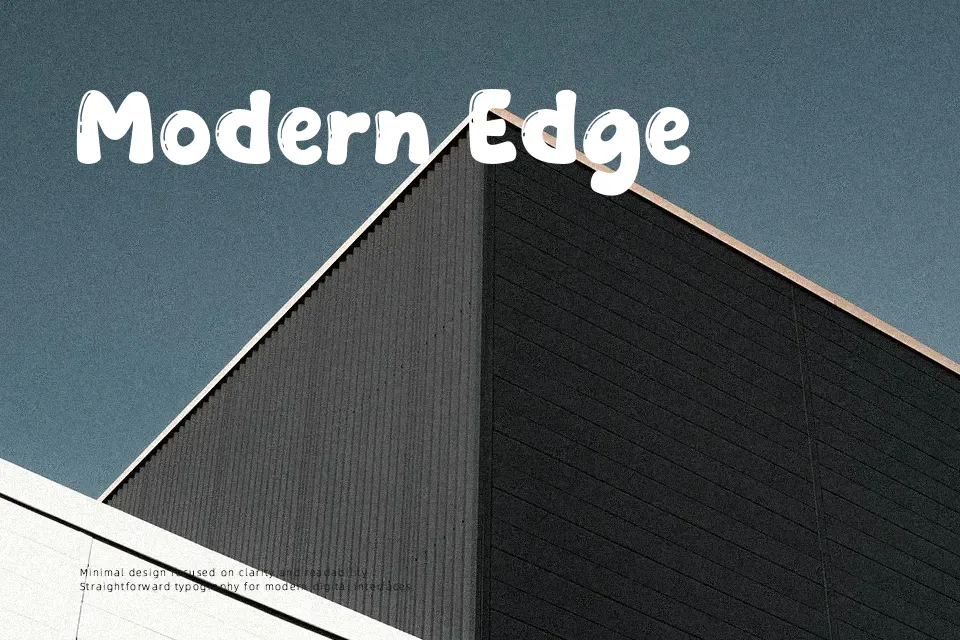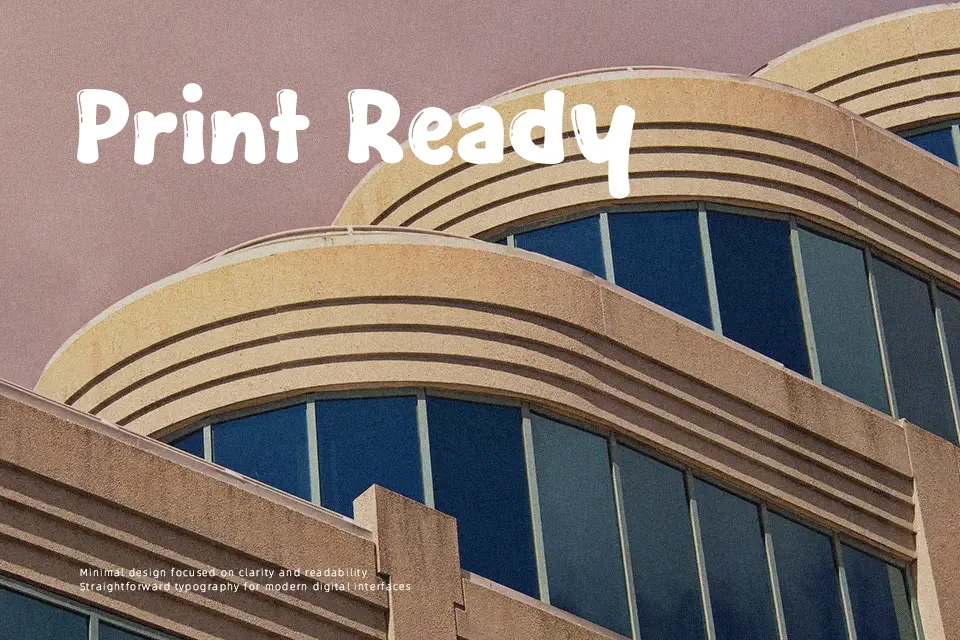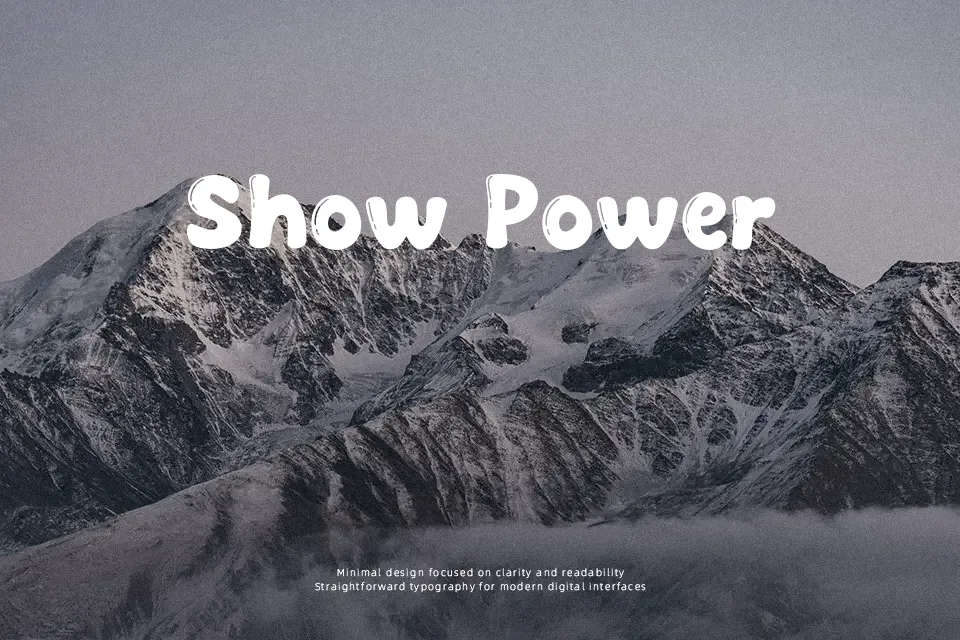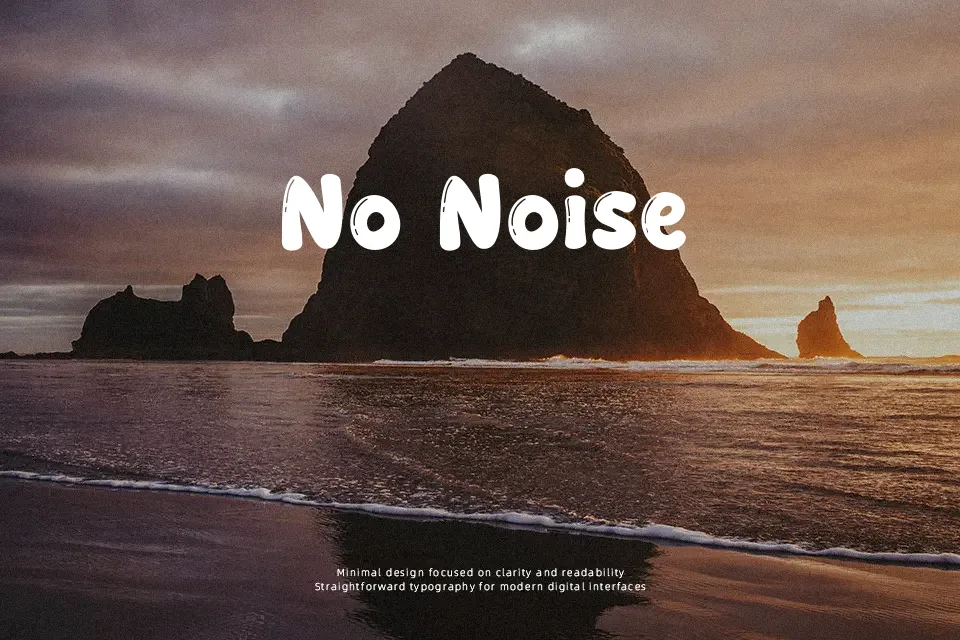
Donuts King Font
Designed by MJType
Donuts King Font has thick, rounded letterforms, soft corners, and a slightly uneven structure that gives it a casual, hand-drawn bounce. The spacing feels compact, so short words land better than long lines. Its cartoon tone works well on donut packaging, bakery signs, kids event posters, or social posts that need a warm, sugary mood. It feels friendlier than a typical bold display face, though not as polished as branding-focused rounded sans fonts. Use it when you want something playful and approachable. Skip it for body text, luxury branding, or layouts that need a clean, restrained voice.
donut shop packaging,kids party posters,bakery social graphics,playful food branding
body text,formal editorial layouts,luxury branding,dense website UI
Perfect for headline, kids, and packaging, with a cute and cartoon style.